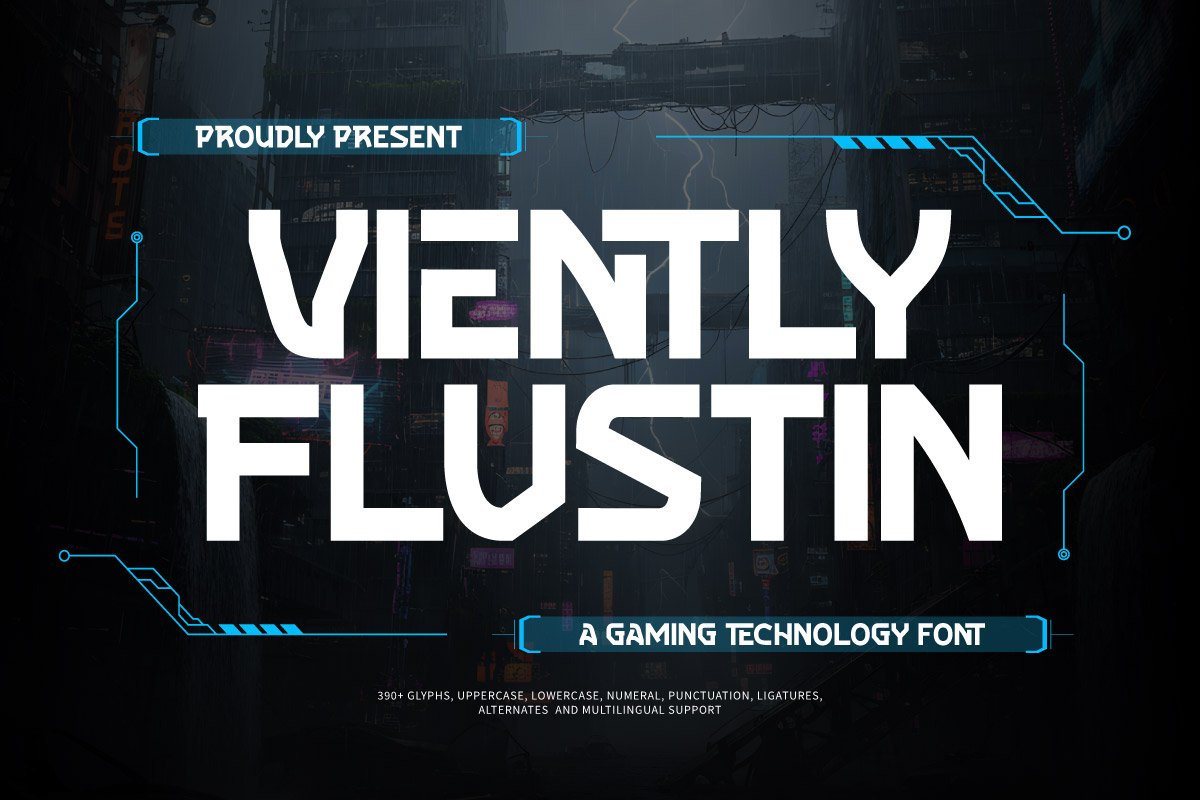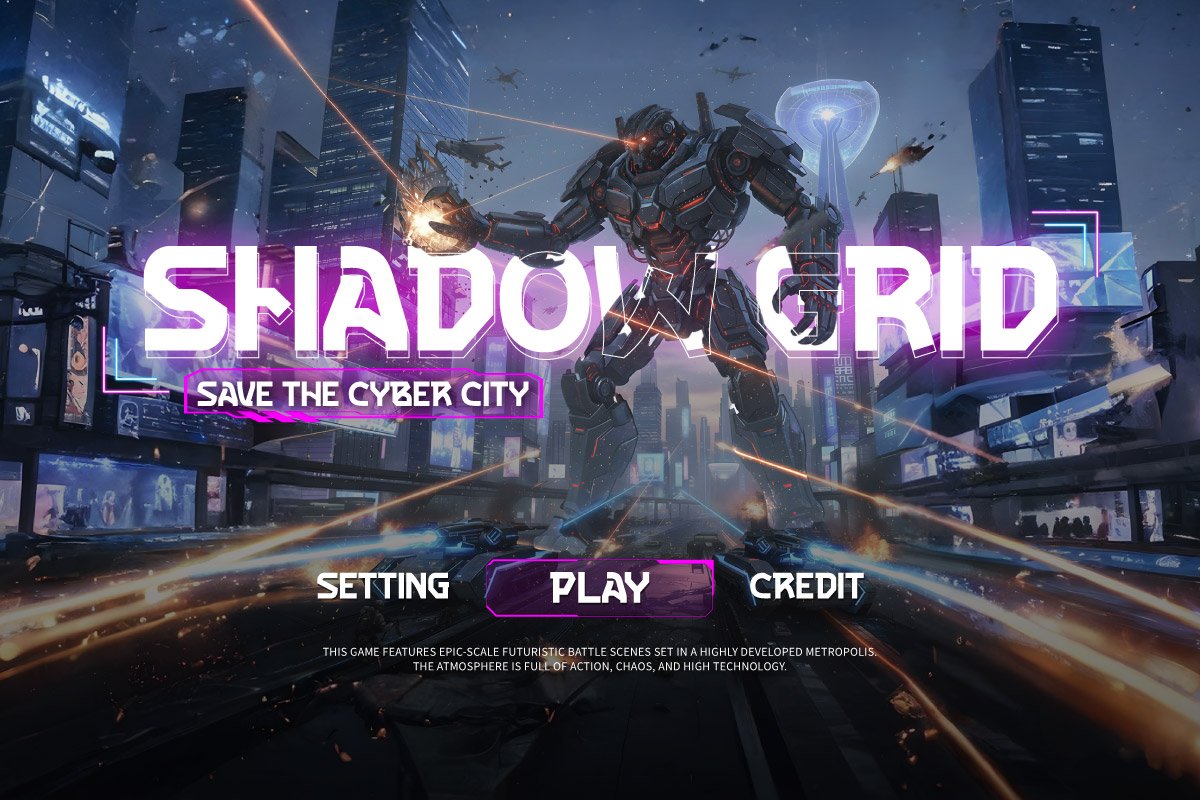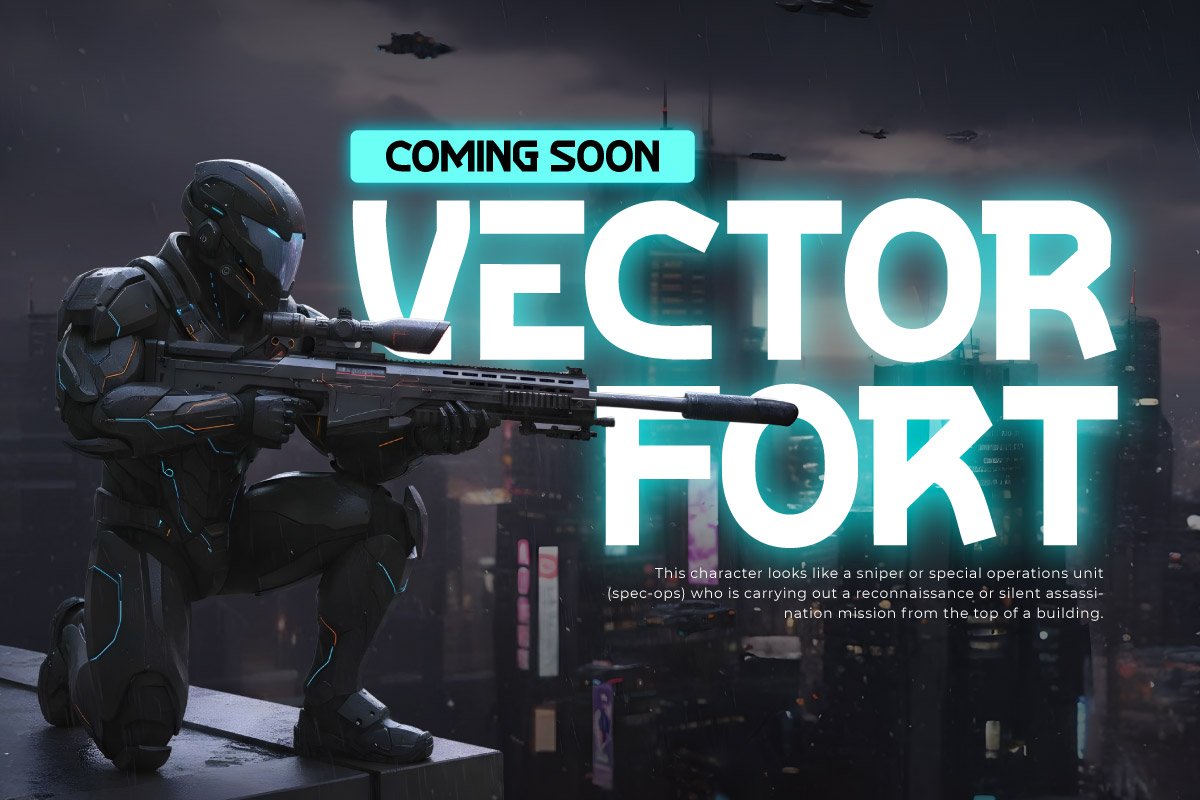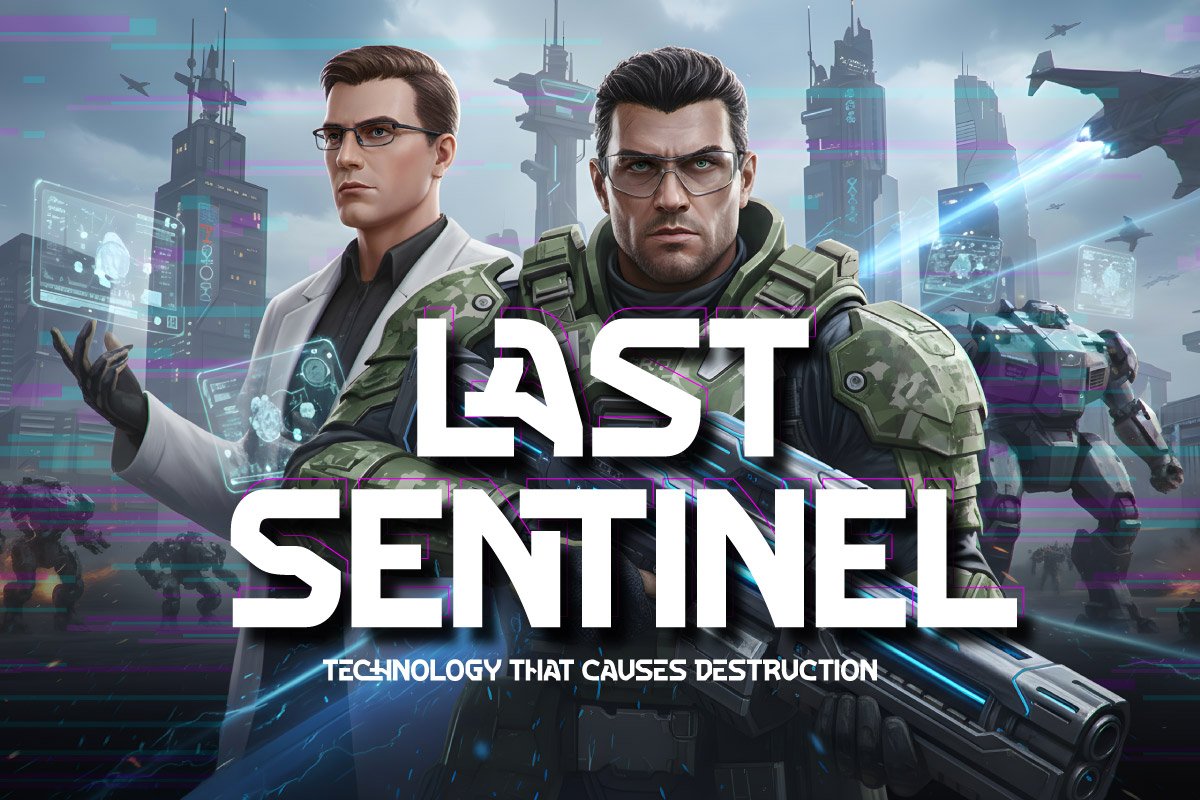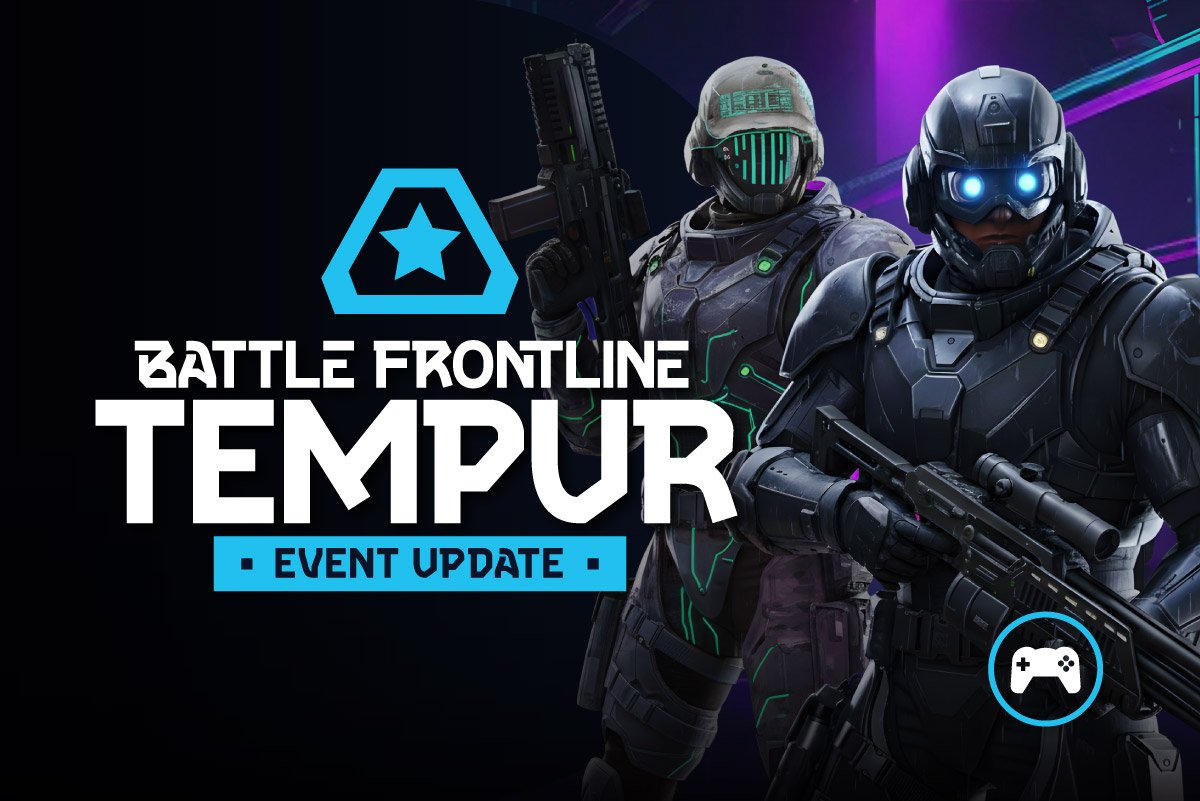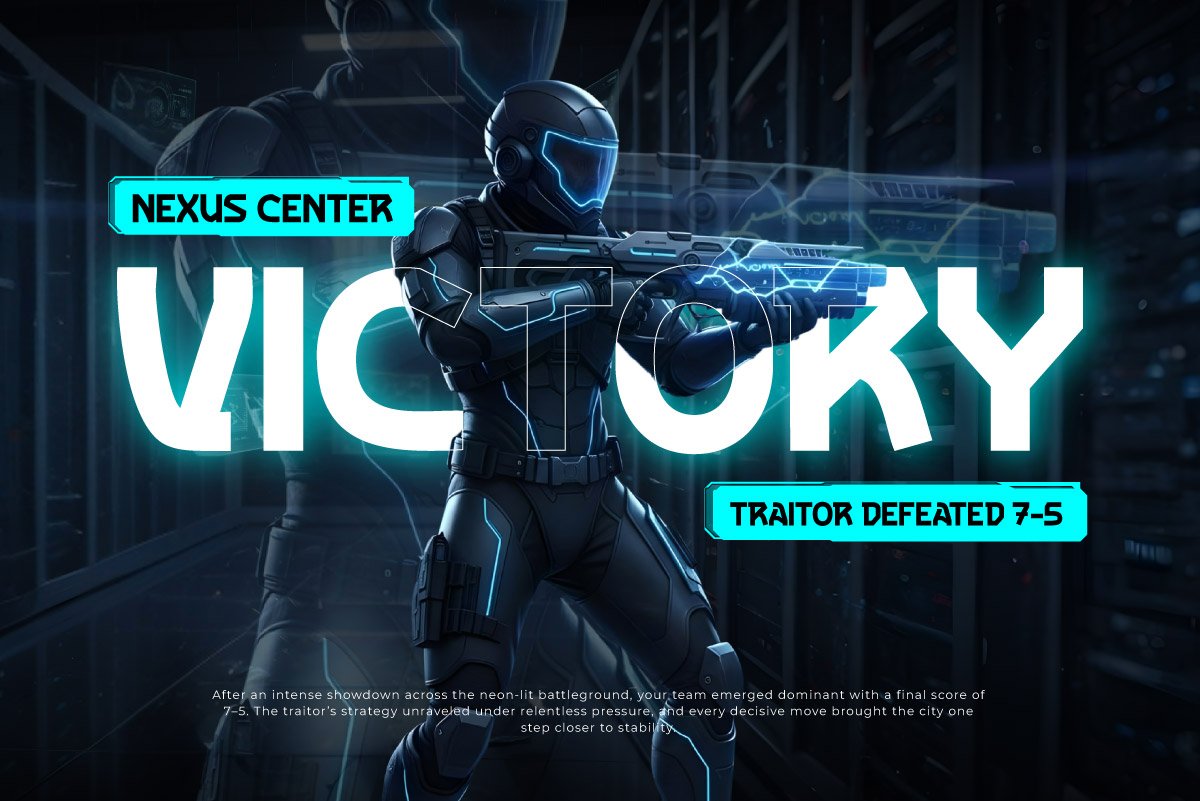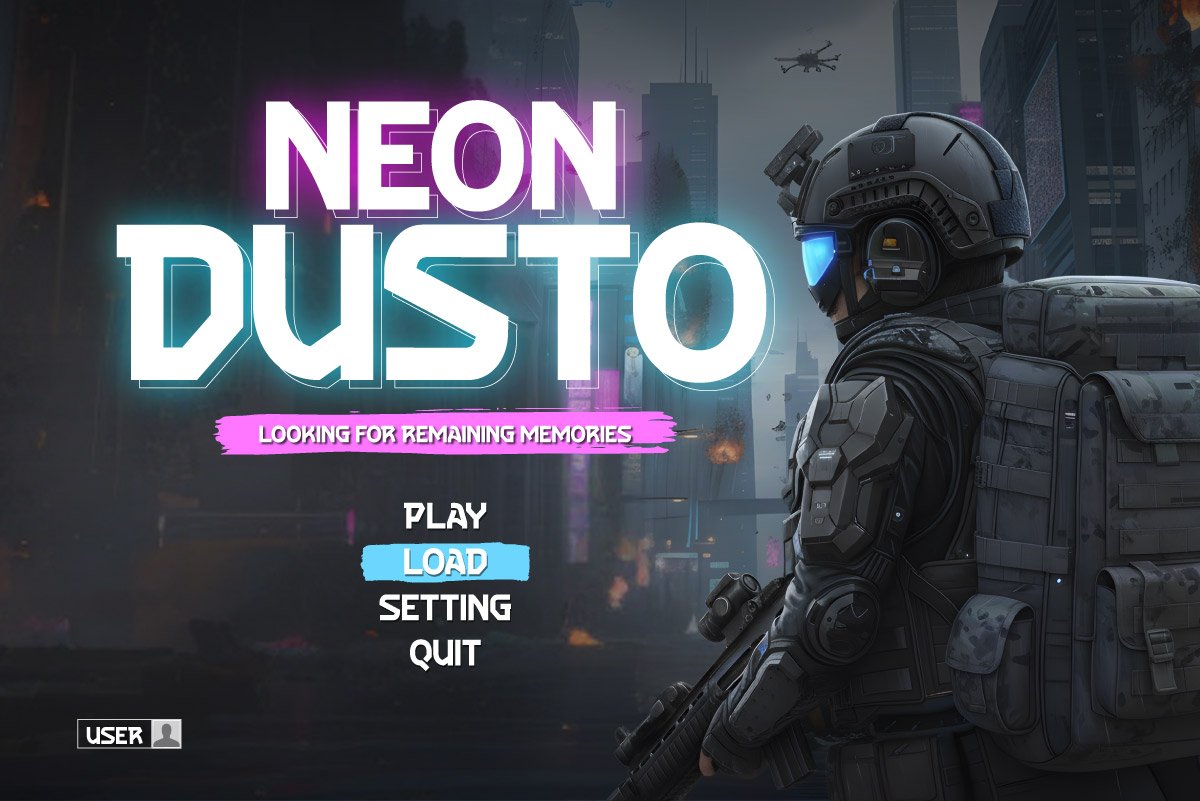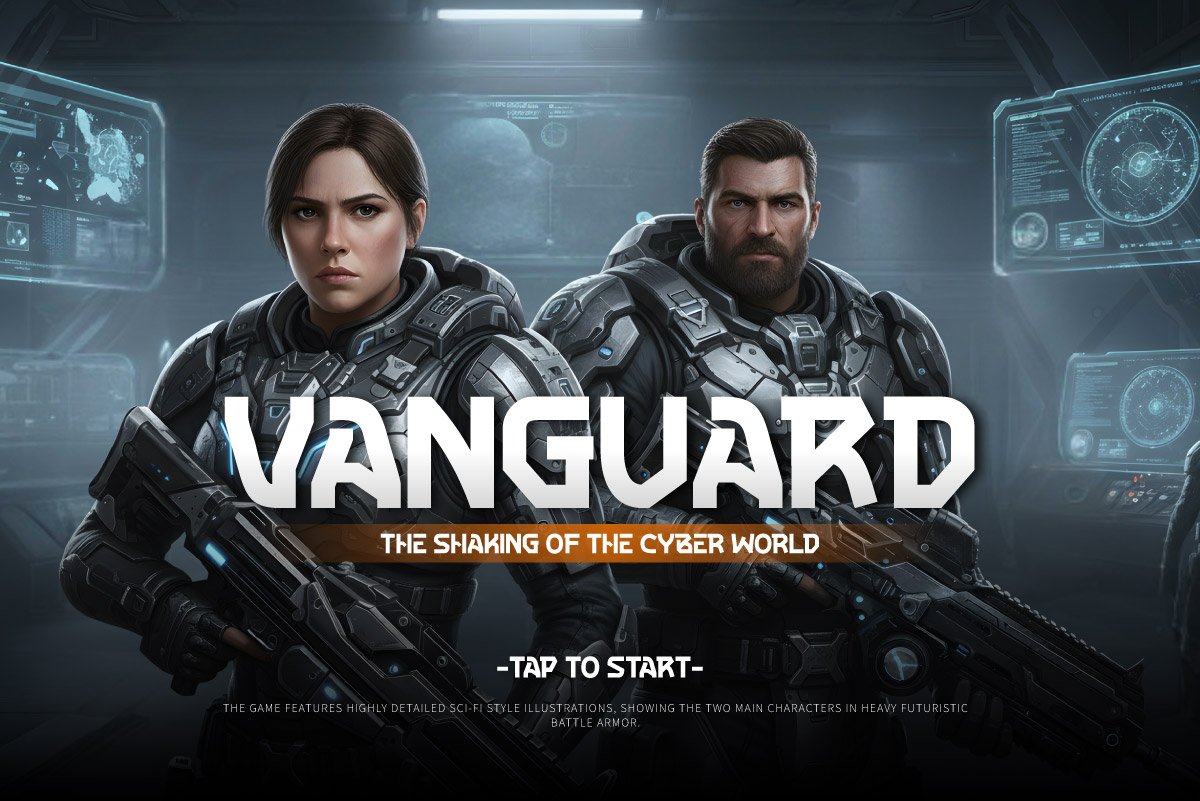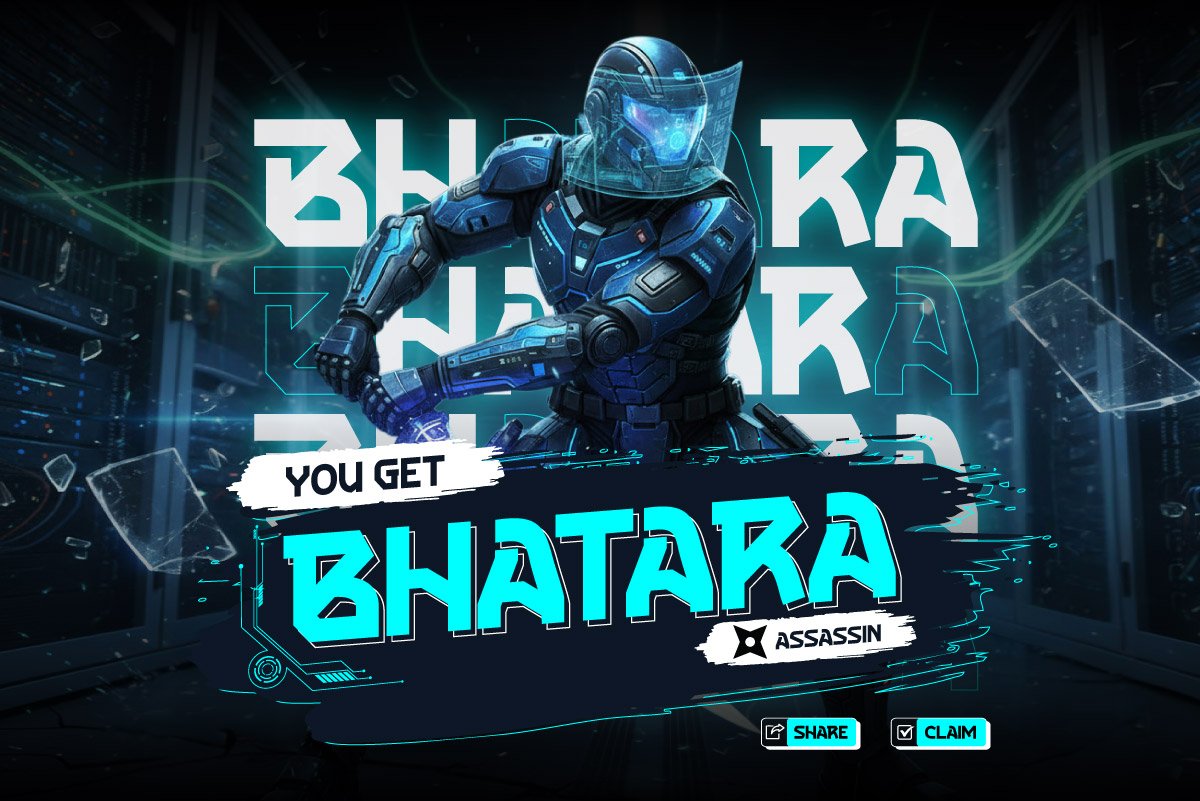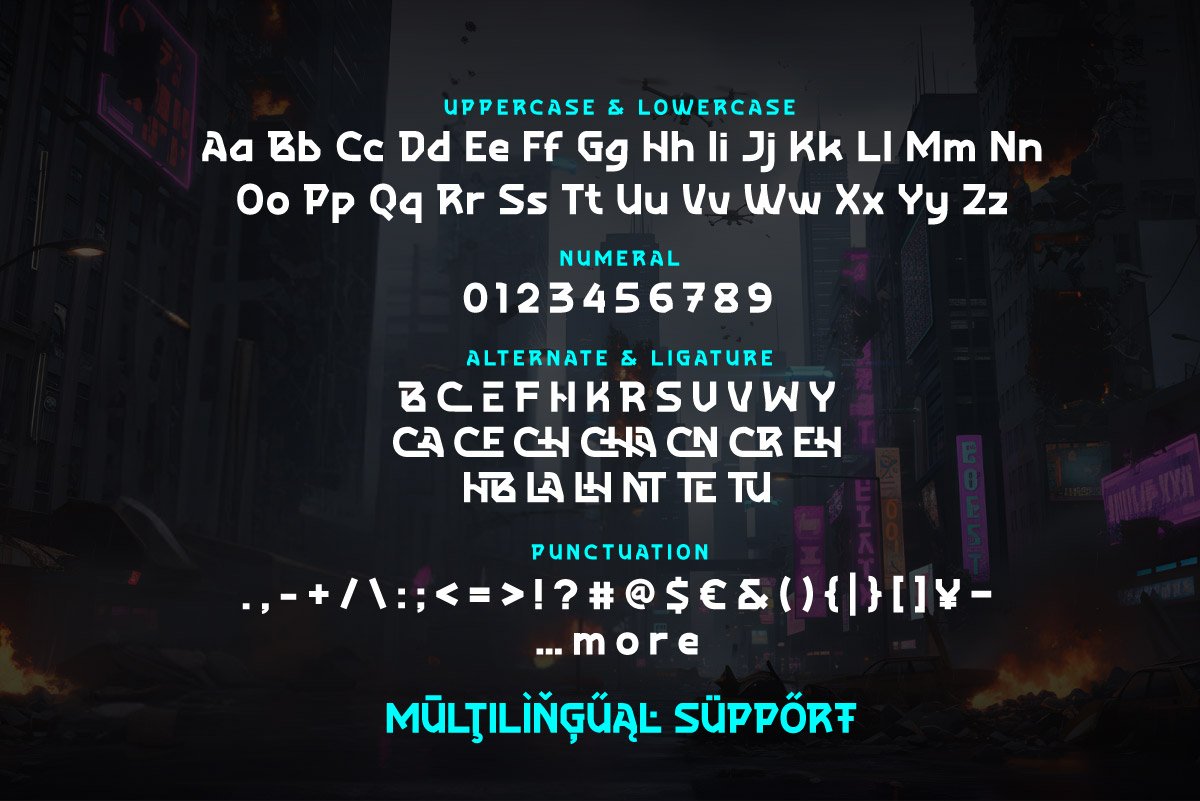
5. Viently Flustin – Gaming Technology Display Font
Viently Flustin – Gaming Technology Display Font
Viently Flustin is a Gaming Technology Font typeface featuring a futuristic aesthetic with a strong geometric approach. Inspired by military interfaces and digital battle arenas, this font is designed to deliver a firm visual impact for Action FPS game titles. Its solid letterform characteristics are perfectly suited for visual identities that prioritize high-tech and tactical precision.
The font’s design structure adopts Military Sci-Fi elements with sharp edges and balanced proportions to ensure optimal readability. This makes Viently Flustin highly functional for Futuristic Weapon UI needs, heads-up display (HUD) graphics, and cinematic poster designs. Every angle of the letters reflects consistent technical detail, helping designers create a modern and immersive cyber-world atmosphere.
As a Shooter Game Technology Font, Viently Flustin offers a professional typography solution for game developers and digital content creators. The font supports large-scale usage for esports branding and tech promotional materials requiring a strong character. With its clean and firm structure, Viently Flustin is a reliable asset for strengthening visual hierarchy in design projects themed around future innovation and action.